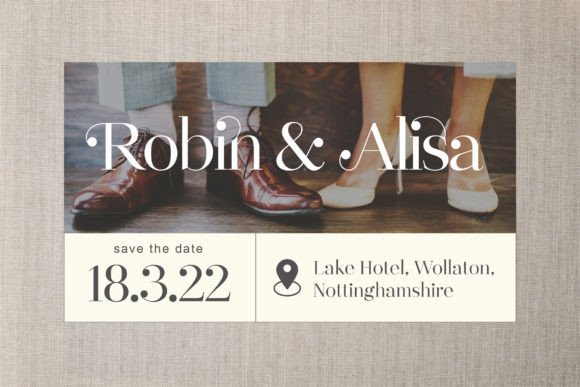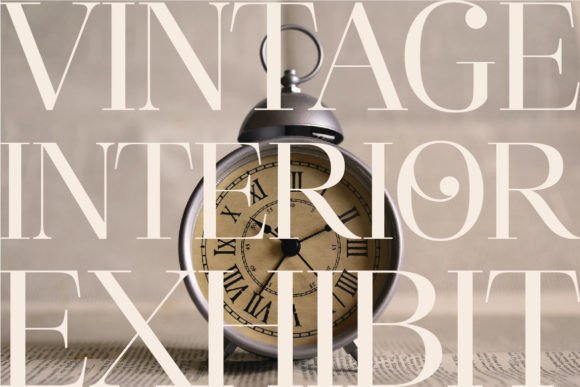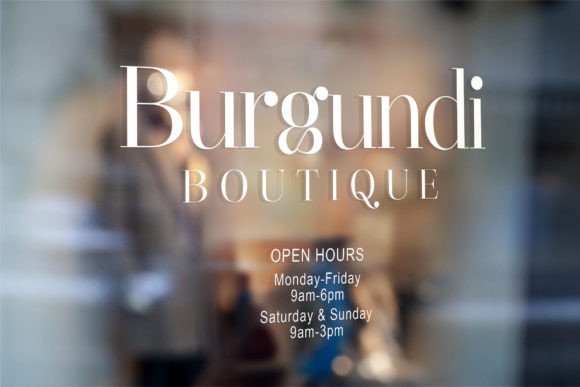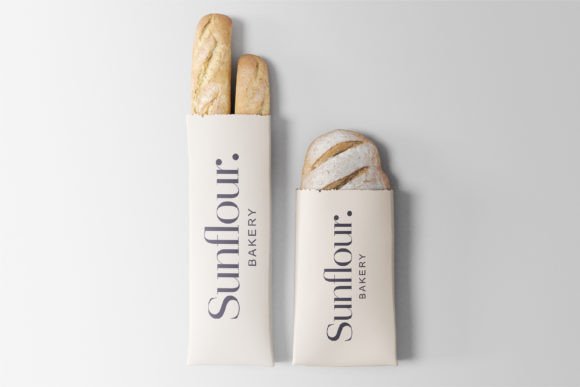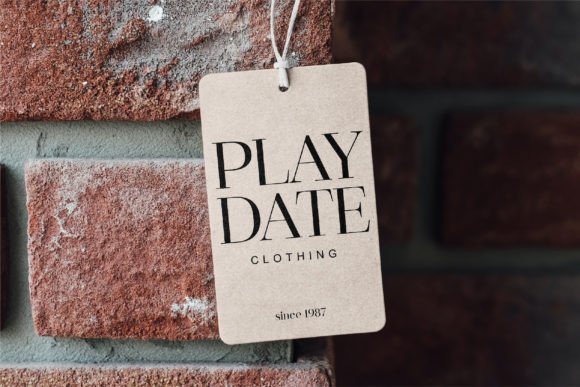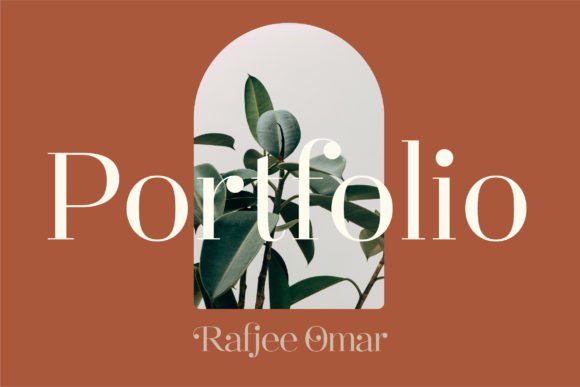
Introducing Destine Font: Elevate Your Designs with Elegance and Versatility
In the world of typography, a font can make or break a design. For those seeking an elegant and fashionable serif font, look no further than Destine. This stunning font is designed to captivate with its incredibly versatile style, perfect for creating a wide range of projects, from gorgeous wedding invitations to beautiful stationary art, eye-catching social media posts, and much more.
The Essence of Destine Font
Destine is more than just a font; it’s an experience. Its serif design exudes sophistication and class, making it an ideal choice for designers and crafters who want to add a touch of elegance to their work. Whether you’re creating something traditional or modern, Destine’s versatility ensures it will complement your design perfectly.
Key Features of Destine Font
- Elegant Serif Design: Destine’s serif design is both classic and contemporary, making it suitable for a variety of design projects.
- Incredibly Versatile: From wedding invitations to social media posts, Destine’s style adapts to any design need.
- Easy to Read: Despite its elegant appearance, Destine remains clear and readable, even at smaller sizes.
- Highly Customizable: With a range of weights and styles, Destine can be tailored to fit your design’s tone and personality.
Uses of Destine Font
Destine’s flexibility makes it perfect for numerous applications. Here are some ideas to get you started:
- Wedding Invitations: Create stunning wedding invitations that set the tone for a beautiful and memorable day.
- Stationary Art: Add a touch of elegance to your stationary with Destine, making everyday correspondence feel special.
- Social Media Posts: Stand out on social media with eye-catching posts that showcase Destine’s unique style.
- Branding: Use Destine to create a sophisticated brand identity that speaks to your audience.
- Packaging: Elevate your product packaging with Destine, adding a level of luxury and refinement.
Why Choose Destine Font?
With so many fonts available, why choose Destine? The answer lies in its perfect blend of elegance, versatility, and readability. Destine is not just a font; it’s a design solution that can elevate your work, making it more engaging and professional.
Tips for Using Destine Font
To get the most out of Destine, consider the following tips:
- Experiment with Weights: Destine’s range of weights allows for creative freedom. Experiment with different weights to find the perfect balance for your design.
- Pair with Complementary Fonts: While Destine is stunning on its own, pairing it with complementary fonts can add depth and interest to your design.
- Consider Your Audience: Tailor your use of Destine to your audience. For example, a more formal project might call for a lighter weight, while a creative project might suit a bolder approach.
Destine font is a game-changer for designers and crafters looking to infuse their projects with elegance and versatility. Its serif design, coupled with its incredible adaptability, makes it a valuable addition to any design toolkit. Whether you’re creating wedding invitations, stationary art, social media posts, or more, Destine is sure to impress. Discover the power of Destine and elevate your designs to new heights of sophistication and style.
Get ready to fall in love with Destine and transform your designs with its beautiful, elegant, and versatile style.